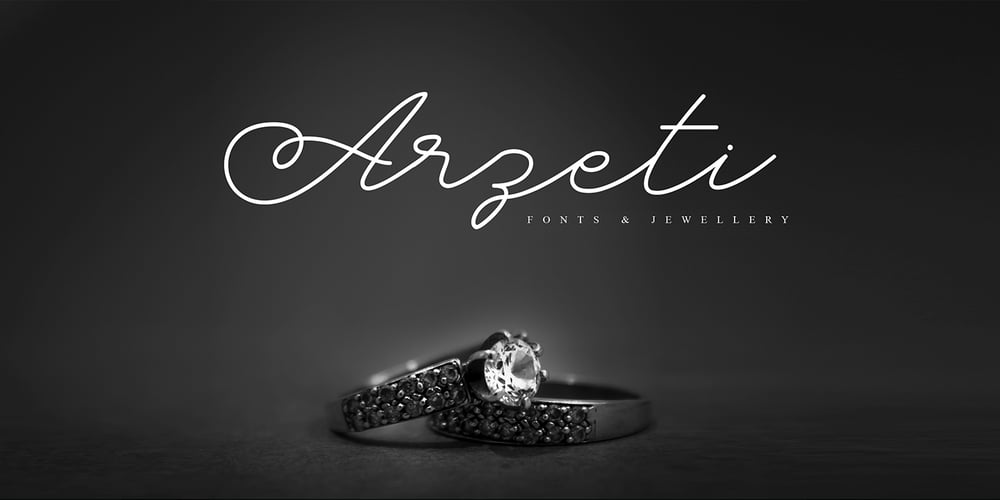
Arzeti Script Font Family was designed by Abdilah and published by Konstantine Studio. Arzeti Script contains 1 styles and family package options. I have enough jewellery – Said no one ever. In every wedding proposal, jewel is a number one thing (after love) that man present to their woman with “Will you marry me?” sentence following. If that’s the way it works, let me show you Arzeti. A present for the one you love. I’m not gonna say its a font cause its a jewel. A sparkling beautiful things for your wedding projects, never get any wrong with any of your wedding invitations, greeting cards, bridal stuff, signs, logo, fashion branding, rustic theme, sweet stuff, as long as love involved, please, give it a go and enjoy it more. Arzeti Script is a beautiful skinny monoline script font (okay its still a font tho) with implementation of handwriting and carefully crafted to lookin lovely in every letters that they have. There’s a Stylistic Alternates for the Uppercase of each letters to make your name sparkling more than before. Available in OTF and TTF files and Multilanguage Support.